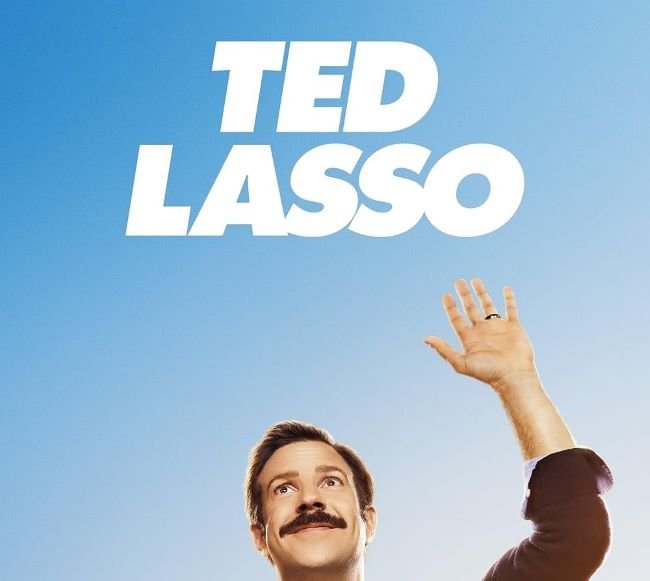
ted lasso font
Ted Lasso font uses Museo Sans Rounded — designed by Jos Buivenga — and the choice is so perfectly calibrated to the Apple TV+ series’ emotional project that it functions almost as a typographic mission statement before the show itself has made its argument. Rounded font terminals on a clean sans-serif font communicate approachability, warmth, and the absence of sharp edges in both the literal and figurative sense — which is precisely what Jason Sudeikis’s character communicates, a man whose entire philosophy is built around the idea that kindness and curiosity are more powerful tools than cynicism and tactical cleverness.